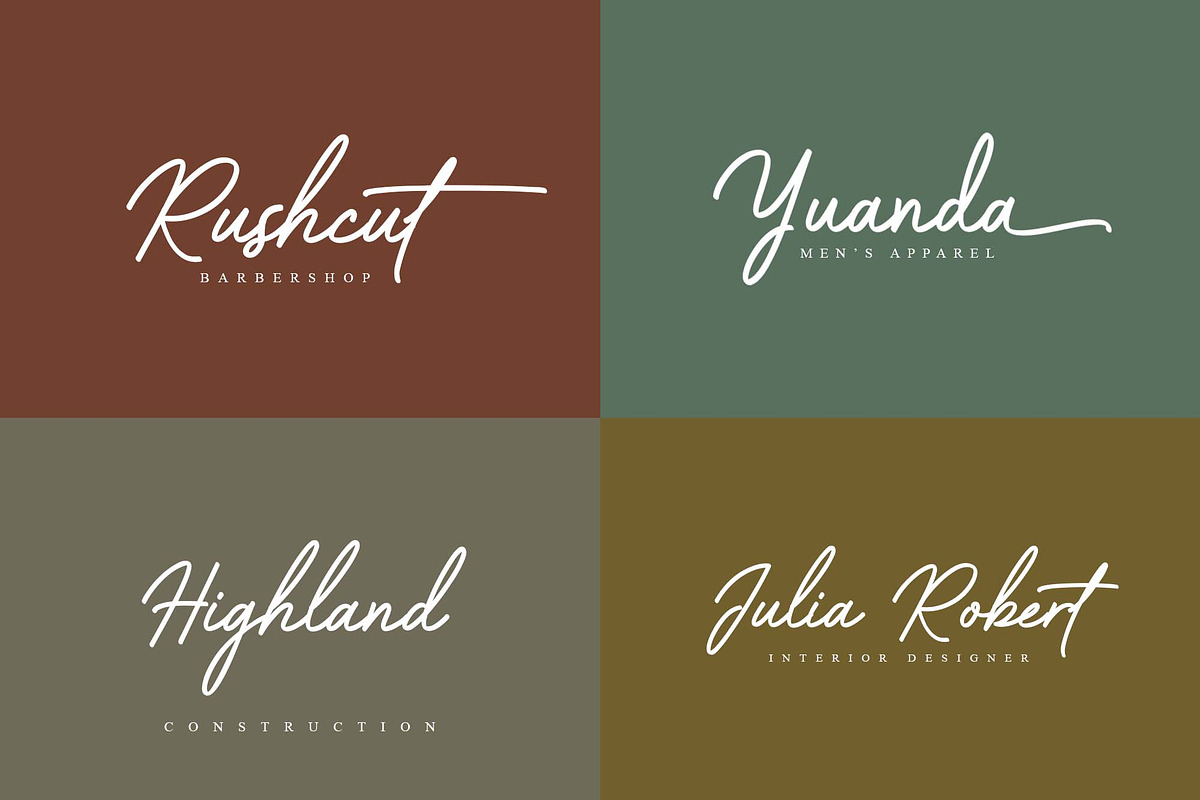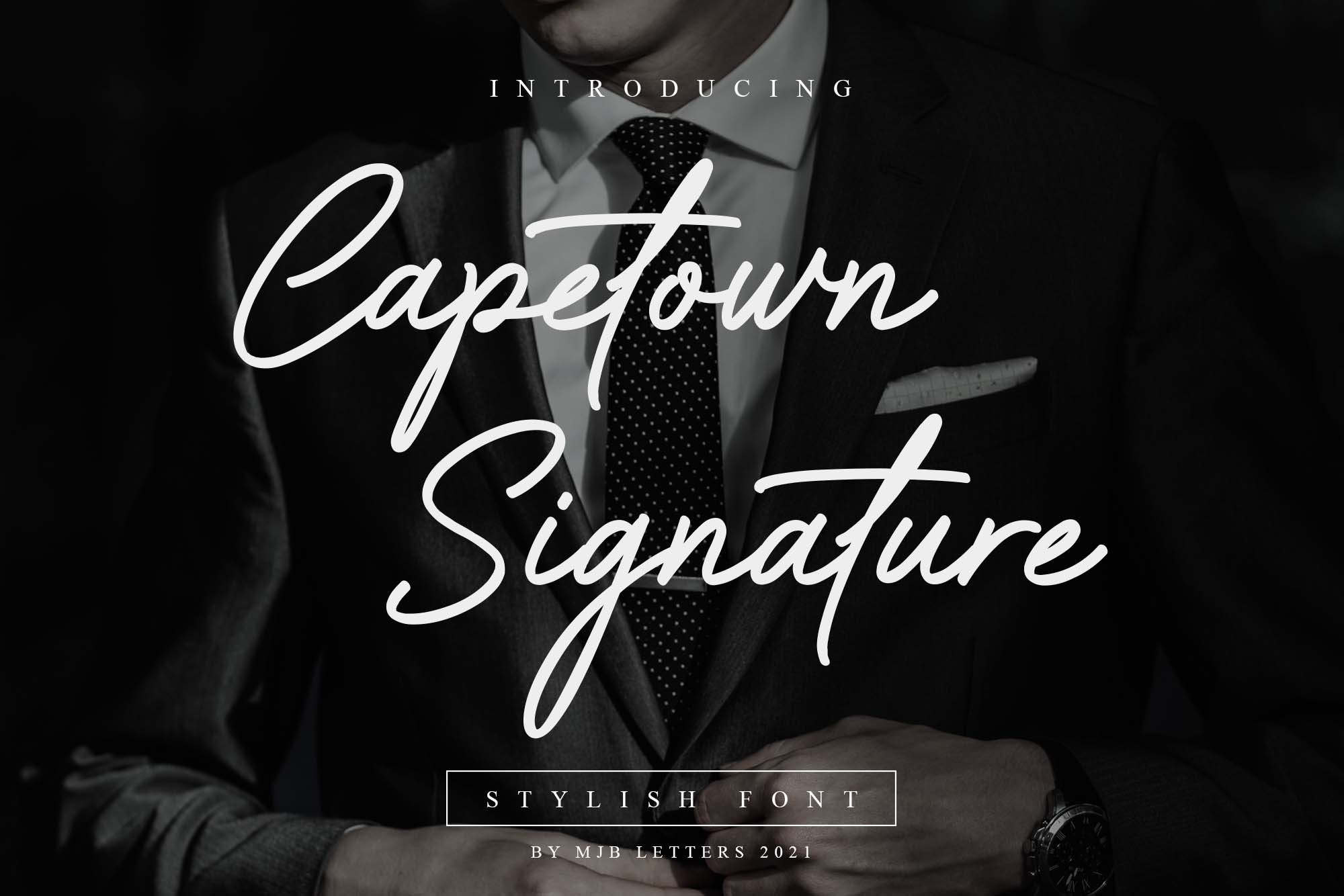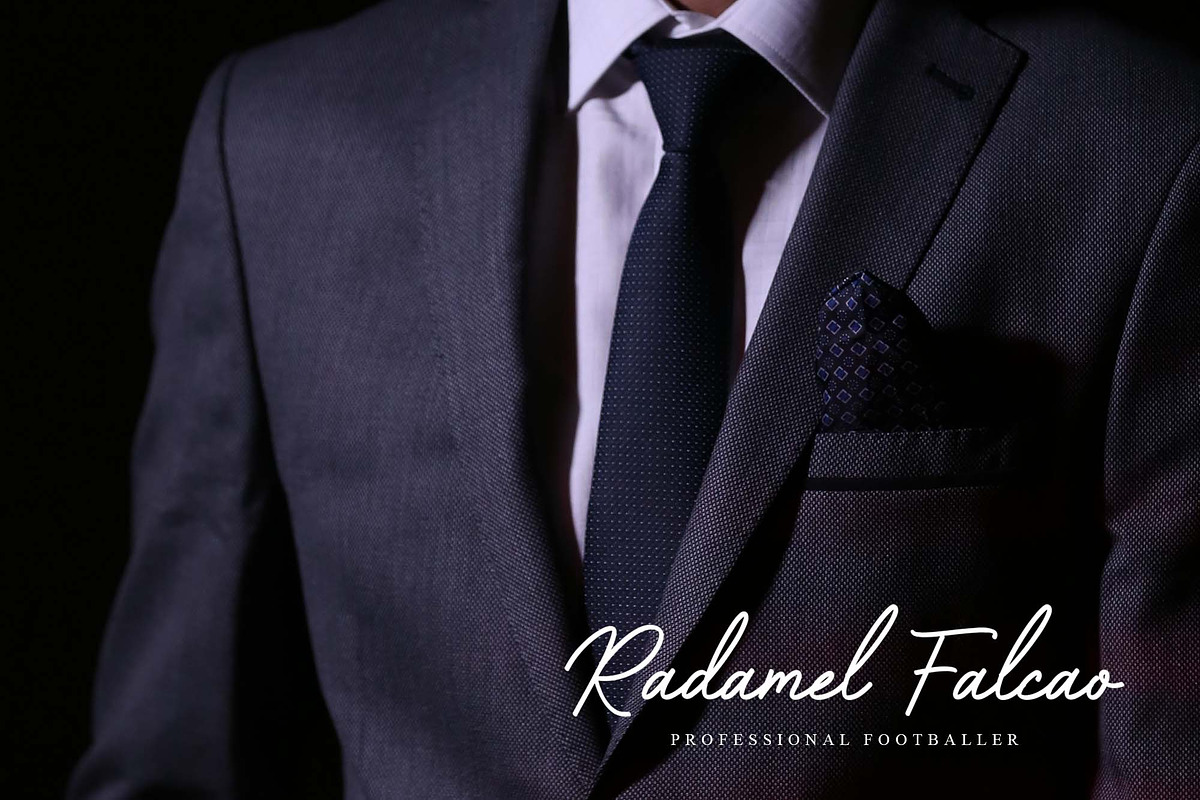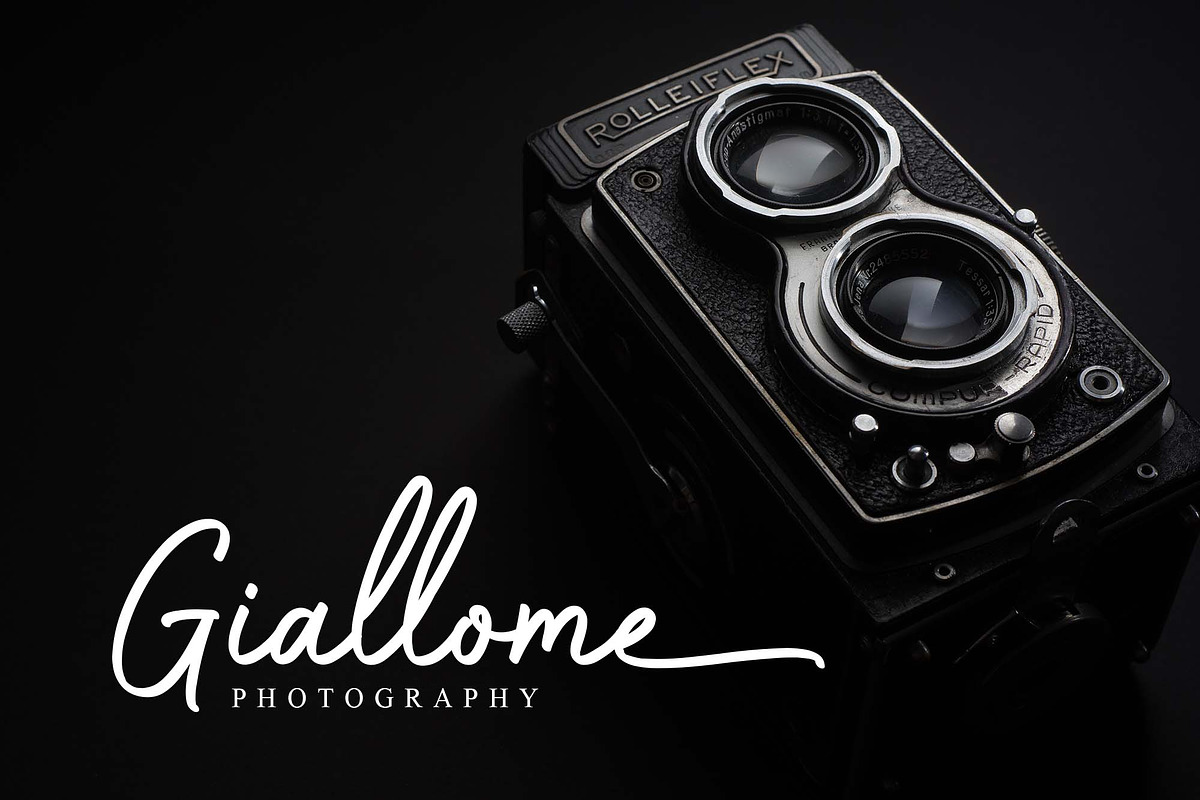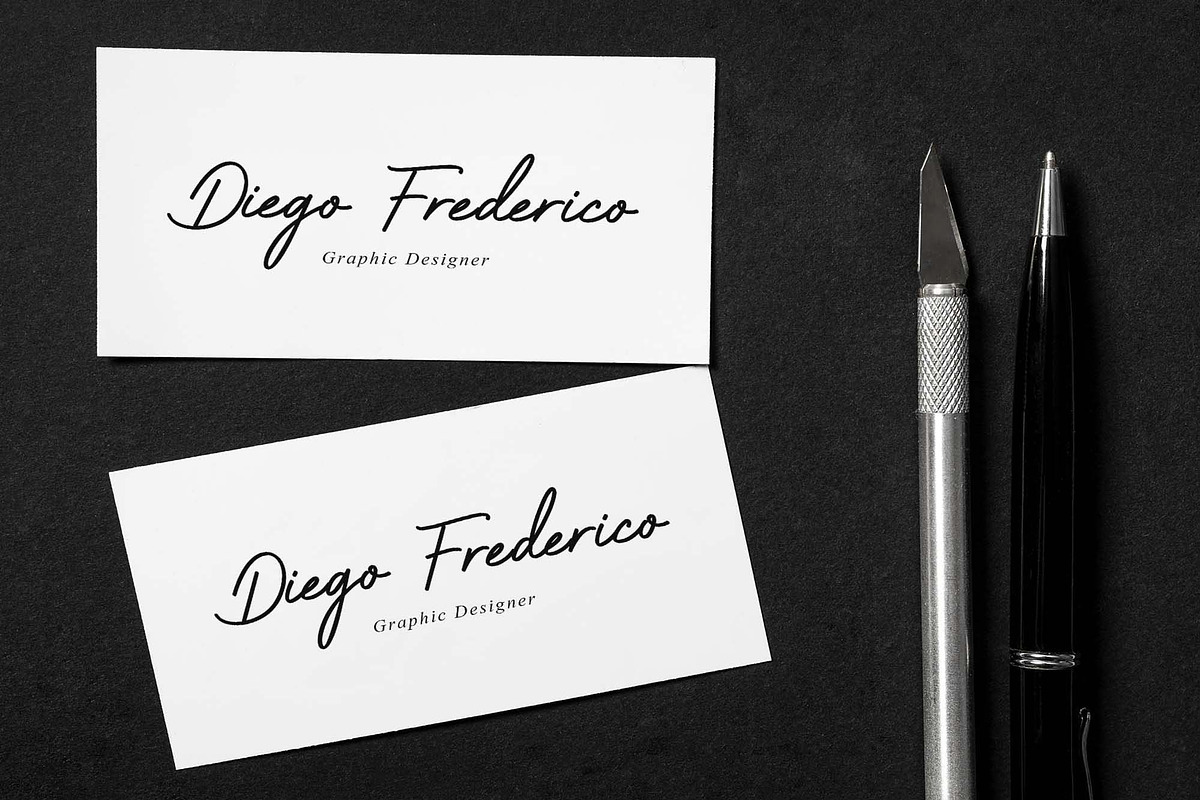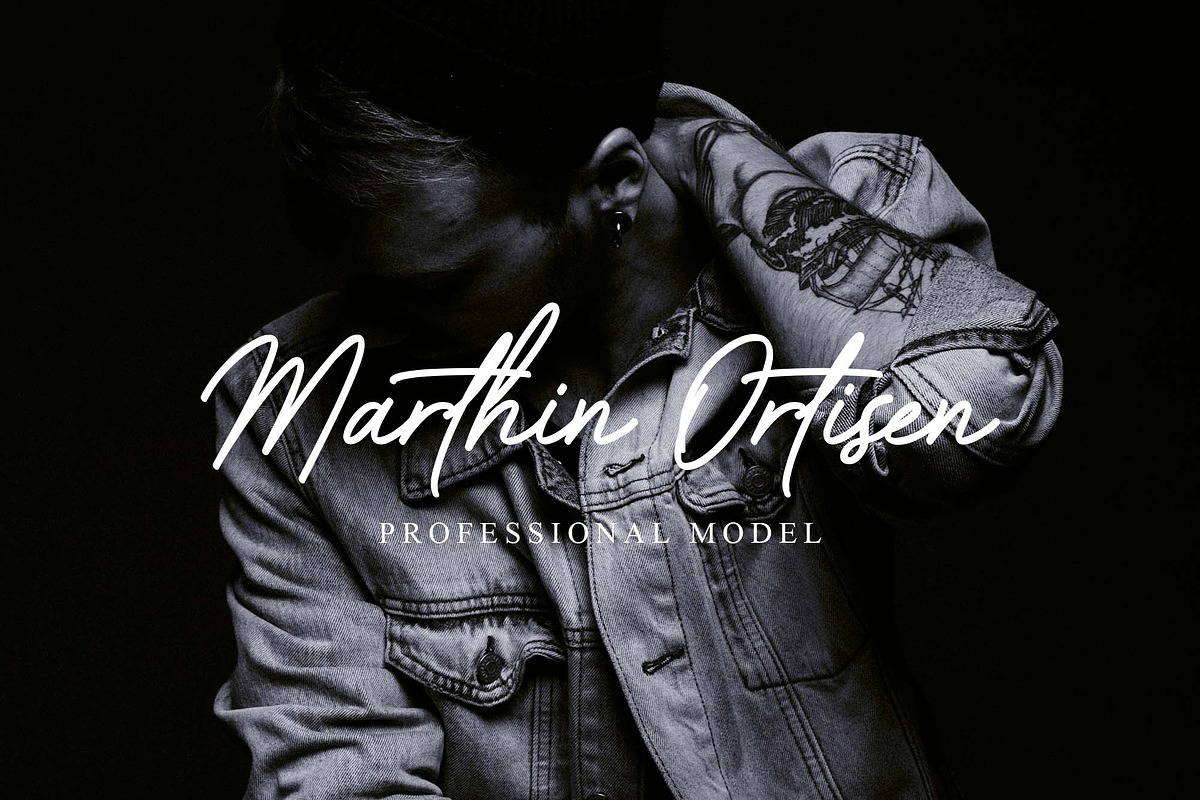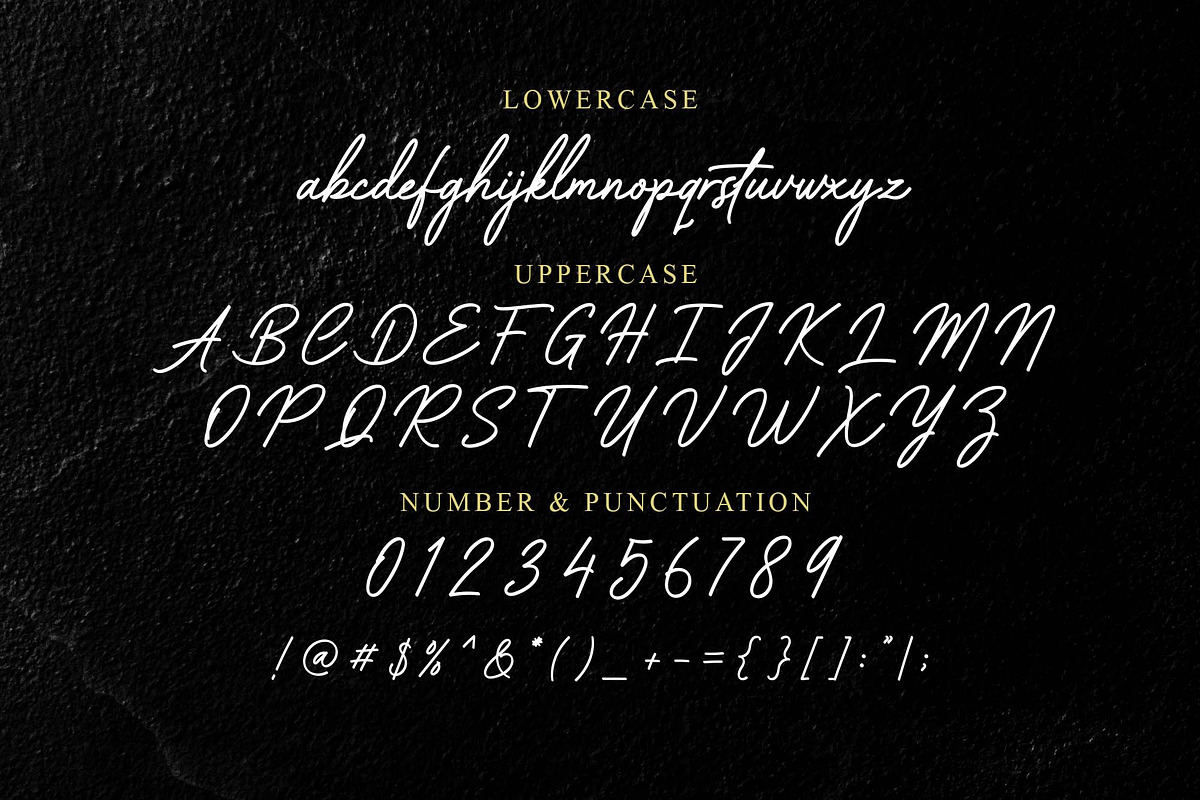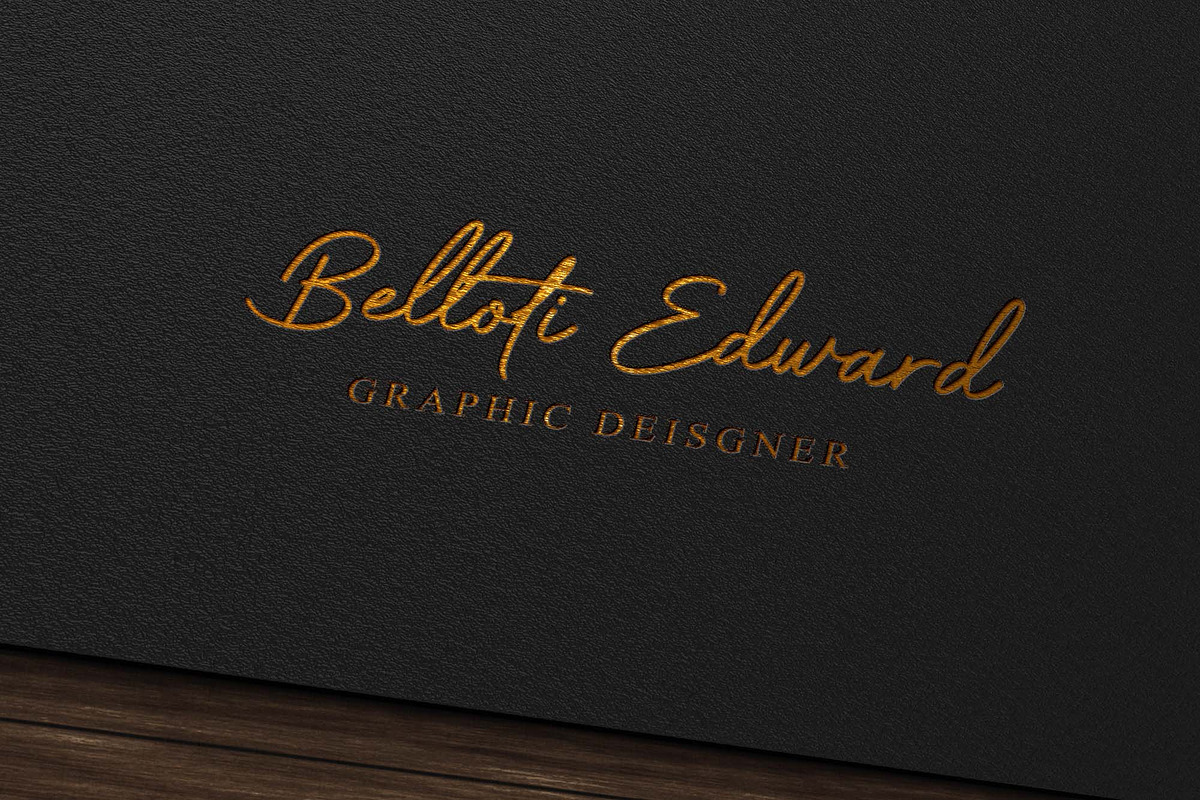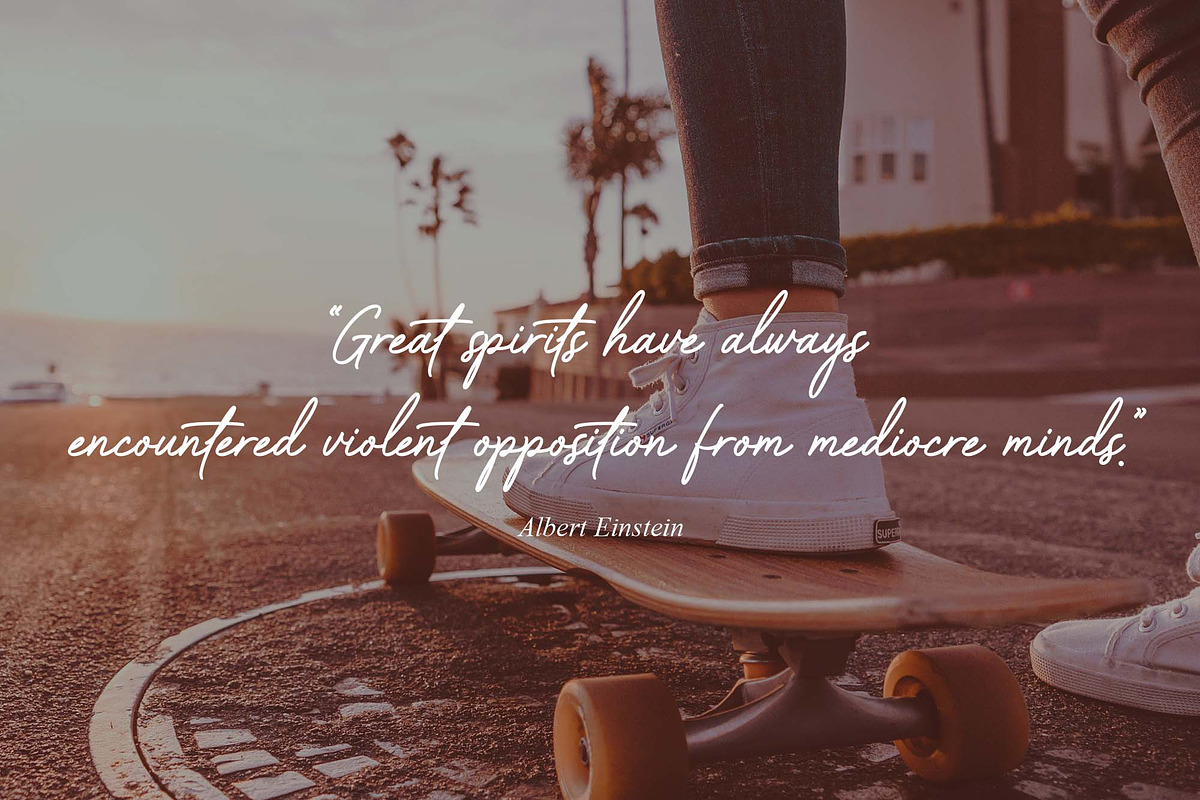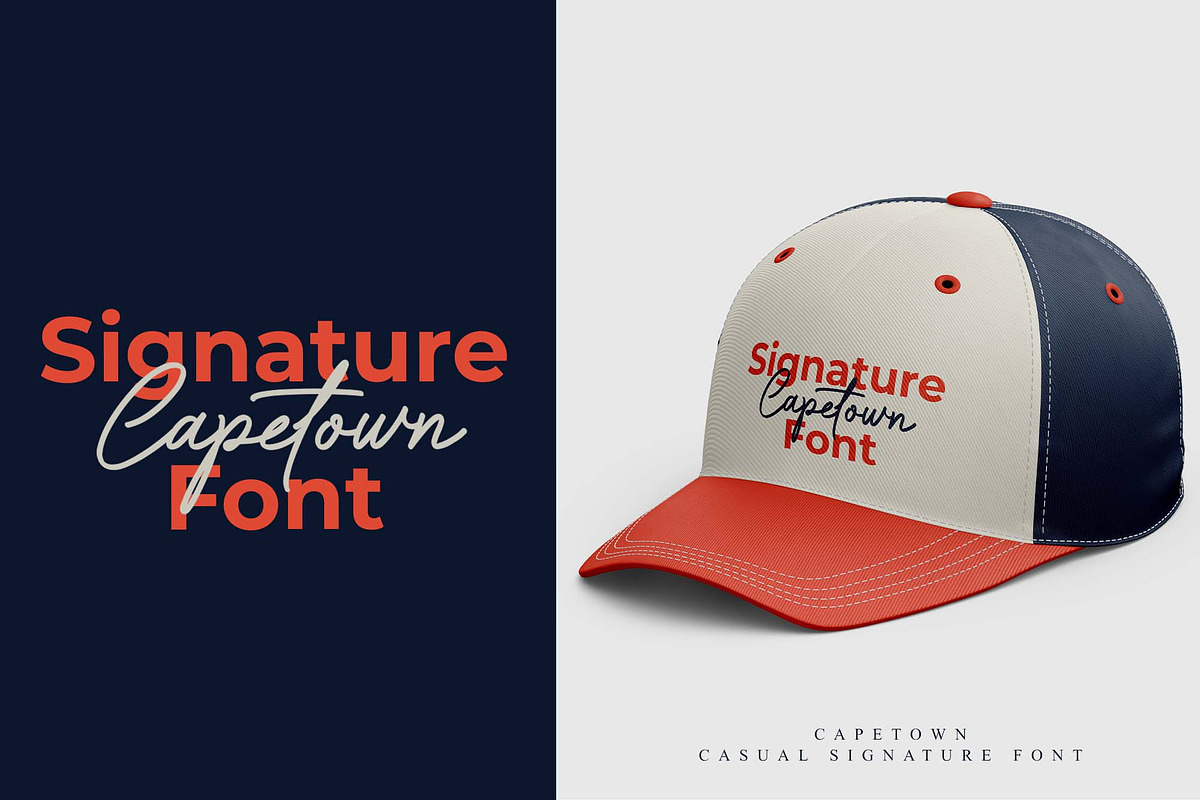
Capetown Signature - Stylish Font
Capetown Signature- Elegant Font
Capetown Signature is a modern and classic script font, perfect for signatures, branding, logos, photography, looks very clean and elegant, it will give the impression of luxury to your design.
Ligature
Swash (swsh) for Ending